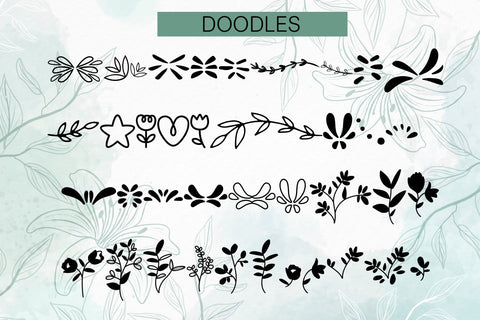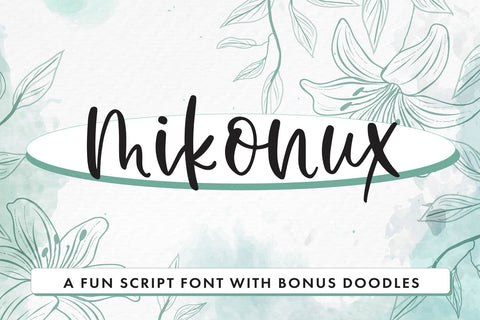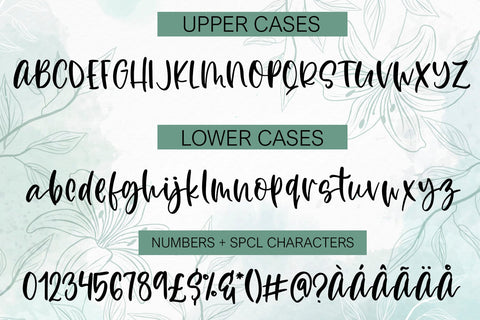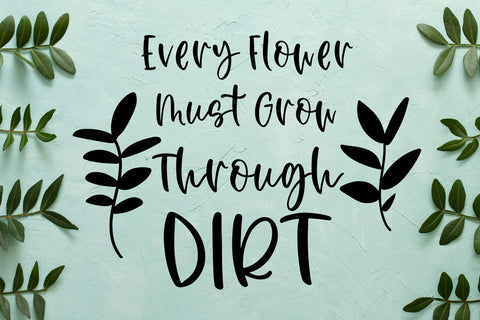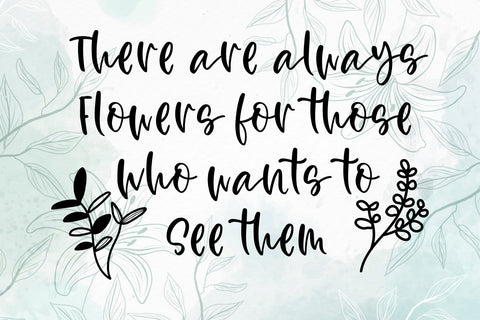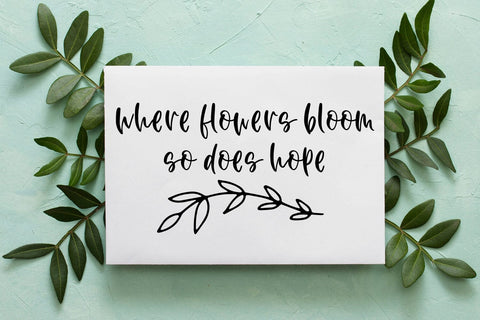
Mikonux
Looking for a font that's both playful and elegant? Look no further than Mikonux! This gorgeous handwritten script font is perfect for adding a touch of whimsy to any project. With its delicate lines and elegant curves, Mikonux is sure to add a touch of charm to your designs.
But that's not all – this font comes with a bonus set of doodles featuring leaves and flowers, adding even more creative possibilities to your projects. Whether you're designing invitations, creating social media posts, or putting together a scrapbook, Mikonux is the perfect font for adding a touch of personality and flair.